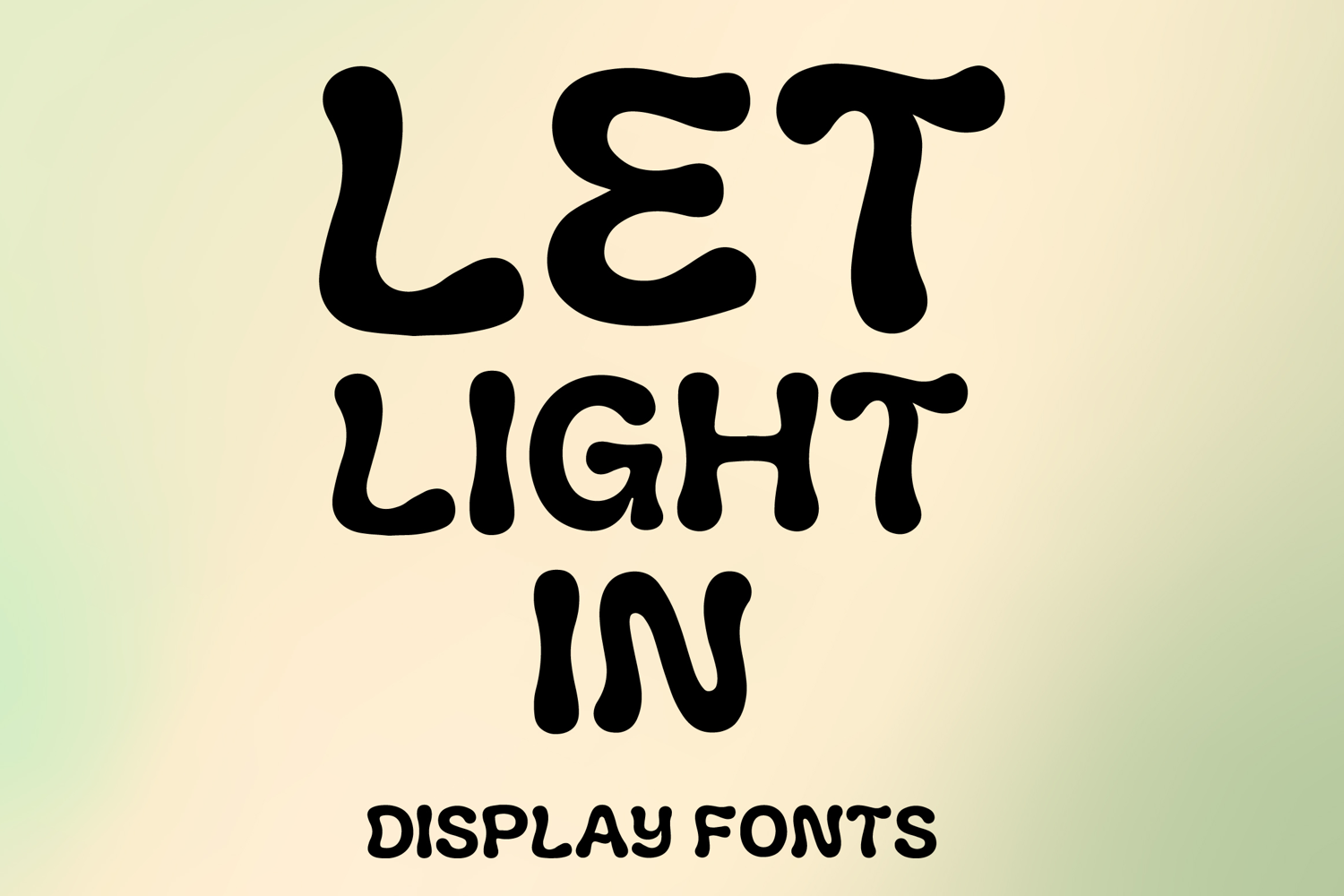
LET LIGHT IN
LET LIGHT IN is a playful decorative display font with a bold rounded style and soft retro-inspired charm. Its uppercase letterforms feature thick smooth strokes, bubbly curves, and quirky organic shapes that create a cheerful, warm, and eye-catching look. Designed with uppercase letters A–Z and numbers 0–9, LET LIGHT IN is perfect for branding, posters, packaging, invitations, quotes, social media graphics, and creative projects that need a fun and memorable statement.